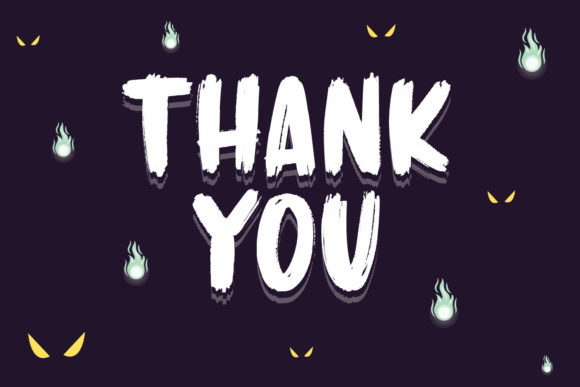
Introduction to Shadow Mystery Font
Do you remember that moment when you stumbled upon the perfect design element and your creative project came to life? It’s like a spark of magic that ignites your imagination and sets your creative juices flowing. For many designers, that moment often involves discovering a unique and versatile font that elevates their work to the next level. For those in the know, the Shadow Mystery Font is a game-changer.
Whether you’re working on a Halloween-themed project, a crafty idea, or simply looking for a design resource to add some flair to your next creative endeavor, the Shadow Mystery Font is an invaluable asset. With its cool and brushed display style, this high-quality font is perfectly suited for any project that requires a touch of mystery and intrigue.
Key Features of Shadow Mystery Font
• Unique and mysterious design, perfect for creative projects that require a touch of elegance and sophistication.
• High-quality font with transparent background, ideal for designers who want to add depth and dimension to their designs.
• Features a large character set, including uppercase and lowercase letters, numbers, and punctuation marks.
• Designed with a high resolution (300 DPI) for crisp and clear display, even at large sizes.
• Perfect for use in various design contexts, including logos, typography, and creative compositions.
Honest Review: Shadow Mystery Font
As a designer, I’m always on the lookout for unique and high-quality design resources to elevate my creative projects. The Shadow Mystery Font is definitely one such find that caught my attention.
• ✨ Unique blend of mystery and elegance, making it perfect for any creative project that requires a touch of sophistication.
• ✨ High-quality font with crisp lines and smooth curves, making it ideal for both digital and print applications.
• ✨ Transparent background, allowing designers to easily layer it over any image or background without any distractions.
• ⚠️ Limited character set, making it less suitable for extensive text-based projects.
• ⚠️ Not ideal for use in small font sizes due to its intricate details.
Overall, I’m quite impressed with the Shadow Mystery Font. It’s a great addition to any designer’s toolkit, especially for creative projects that require a touch of mystery and elegance. While it may have some limitations, it’s definitely worth considering for any design project that requires a high-quality, unique font.
Shadow Mystery Font
The Shadow Mystery Font is a unique and versatile design resource perfect for any creative project. This high-quality font is available for free download and can be used to add an extra layer of depth to your designs.
To get the most out of Shadow Mystery Font, experiment with different font sizes, colors, and layering techniques. Use the font in combination with other design elements to create a unique and visually appealing design.
Shadow Mystery Font is perfect for use in creative projects such as logo design, social media graphics, and advertising materials. It’s also great for adding a touch of elegance to presentations and documents.